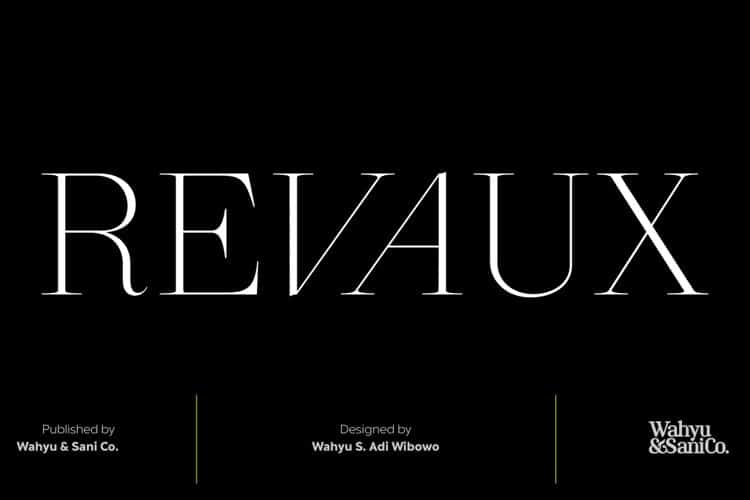
Revaux Font
Revaux Serif Font is modern and elegant sans serif typeface by Wahyu and Sani Co. designed with ball terminals. This font has 304 glyphs including alternates & ligatures and support 61 Latin languages.
Sebian is well-suited for advertising, branding, logotypes, packaging, titles, headlines and editorial design. This font comes in two styles, Regular and Italic Version.